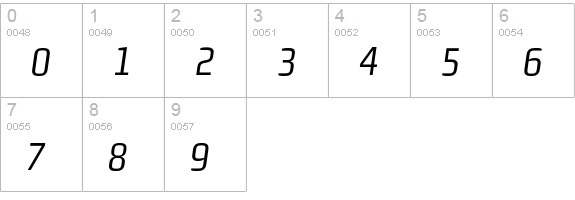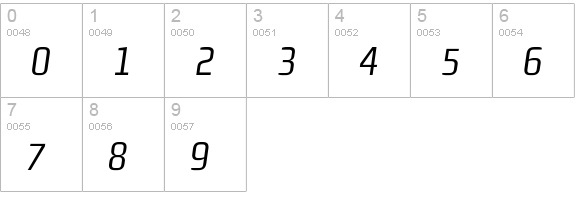
MorganSansCond ItalicLining Font Details
MorganSansCond ItalicLining is a sleek and modern typeface that effortlessly combines elegance with a touch of playfulness. With its slanted and sophisticated italics, this font exudes a sense of dynamism and creativity, making it perfect for projects that require a contemporary and stylish look. Featuring clean lines and a balanced design, MorganSansCond ItalicLining is versatile enough to be used for a wide range of applications, from branding and advertising to editorial design and web content. Its distinctive Lining figures add a sense of refinement and sophistication, making it stand out from the crowd. Best of all, MorganSansCond ItalicLining is available for free download at FontsMarket.com, allowing you to access this high-quality font without any cost. Whether you're a designer looking to add a fresh twist to your projects or a business owner in need of a distinctive typeface, MorganSansCond ItalicLining is a fantastic choice that won't break the bank. Download it today and let your creativity soar!